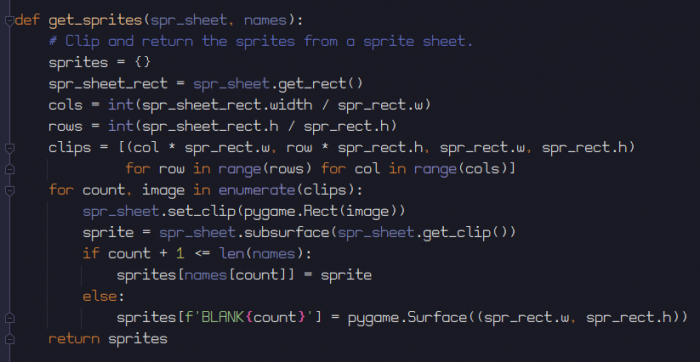
• A wider version of PyPixel Mono with more attention to consistant widths. Nice font for coding.
Here is PyPixel Pro in the Pycharm IDE at size 18 with line spacing set to 1.3.